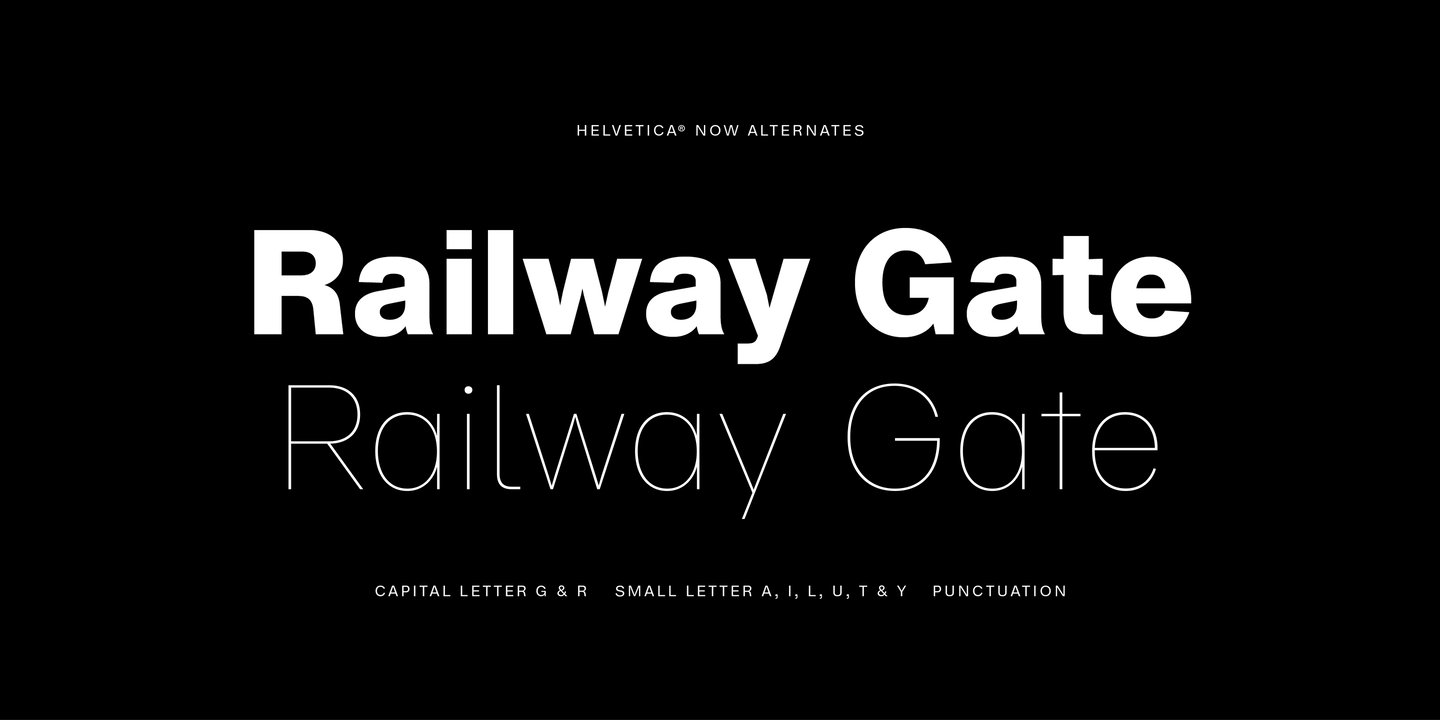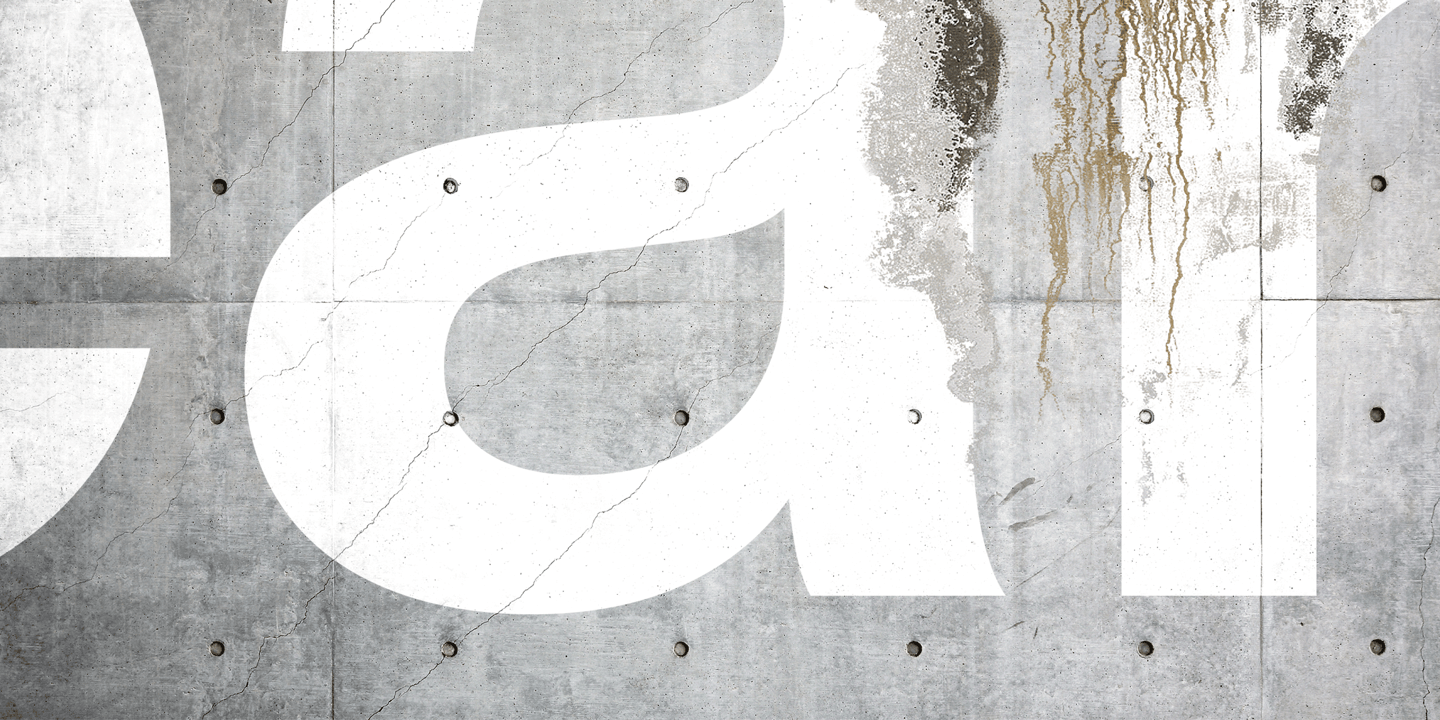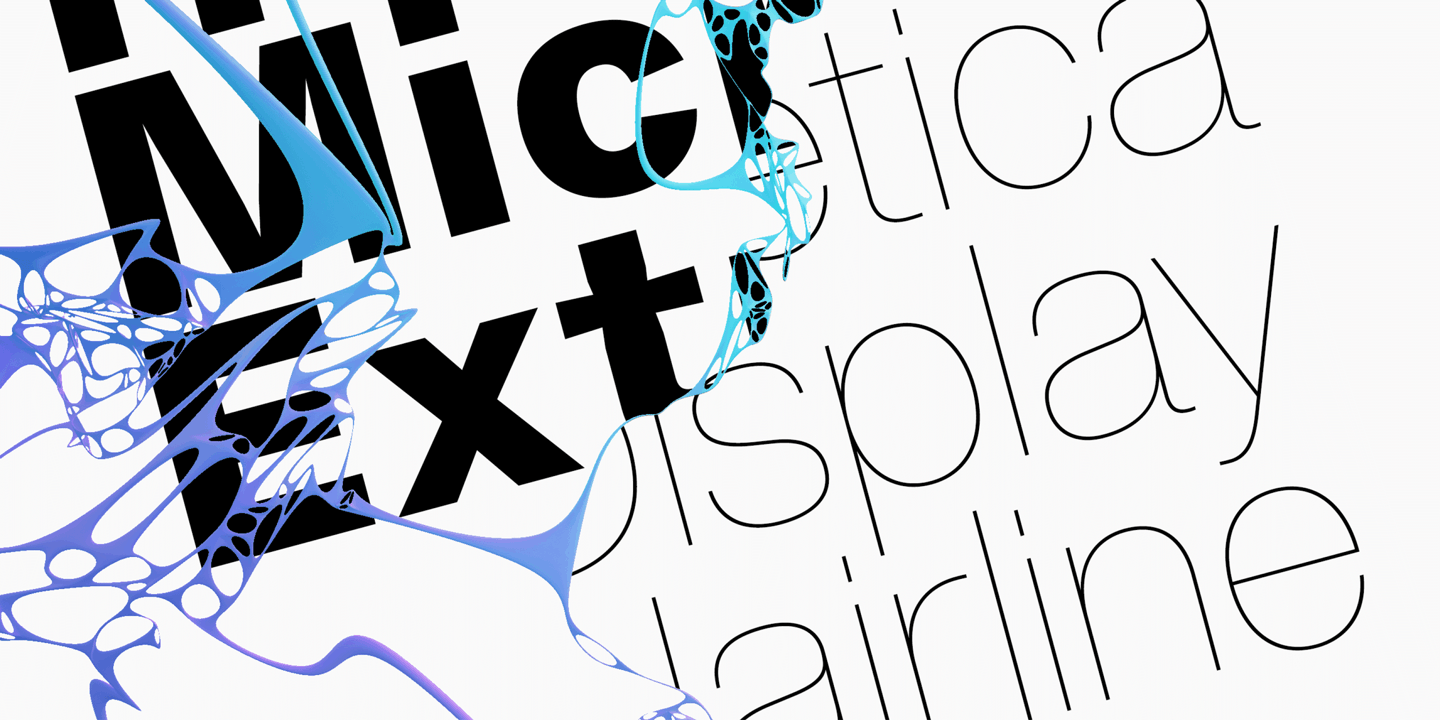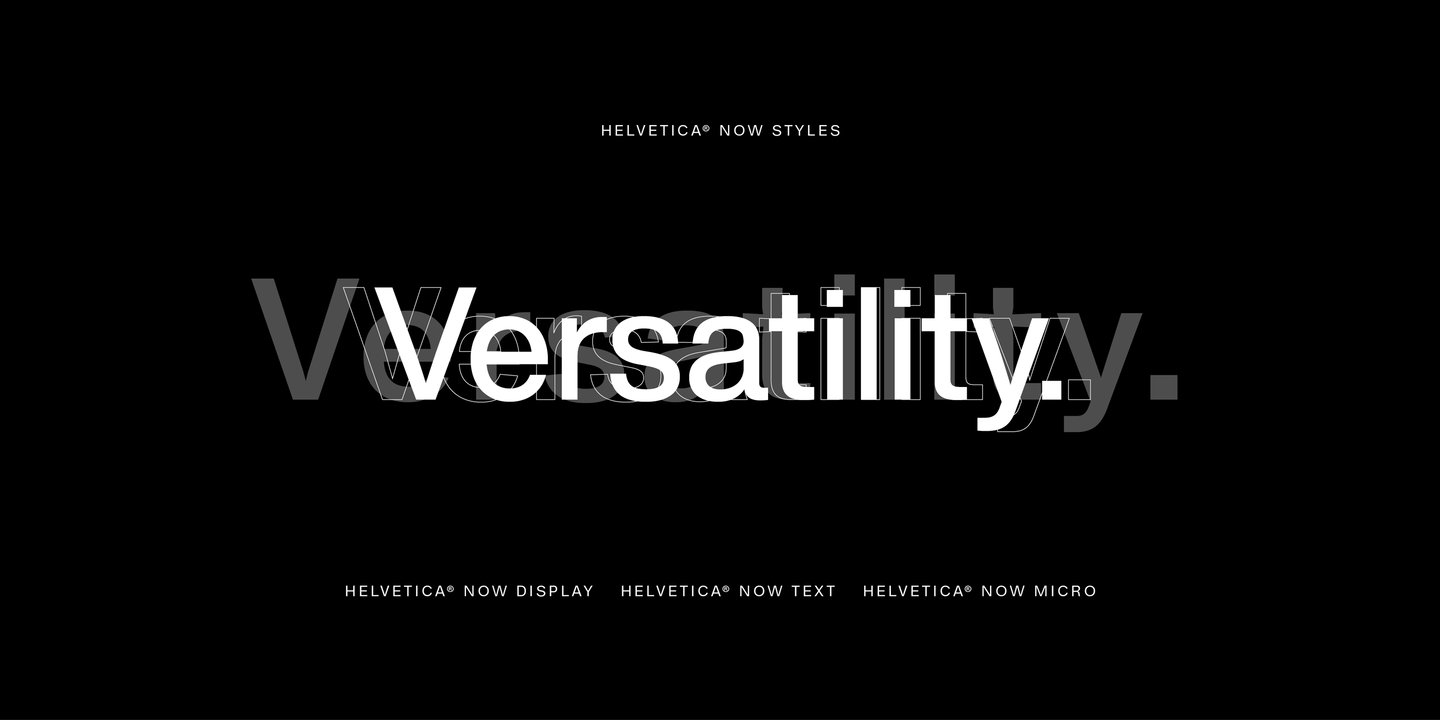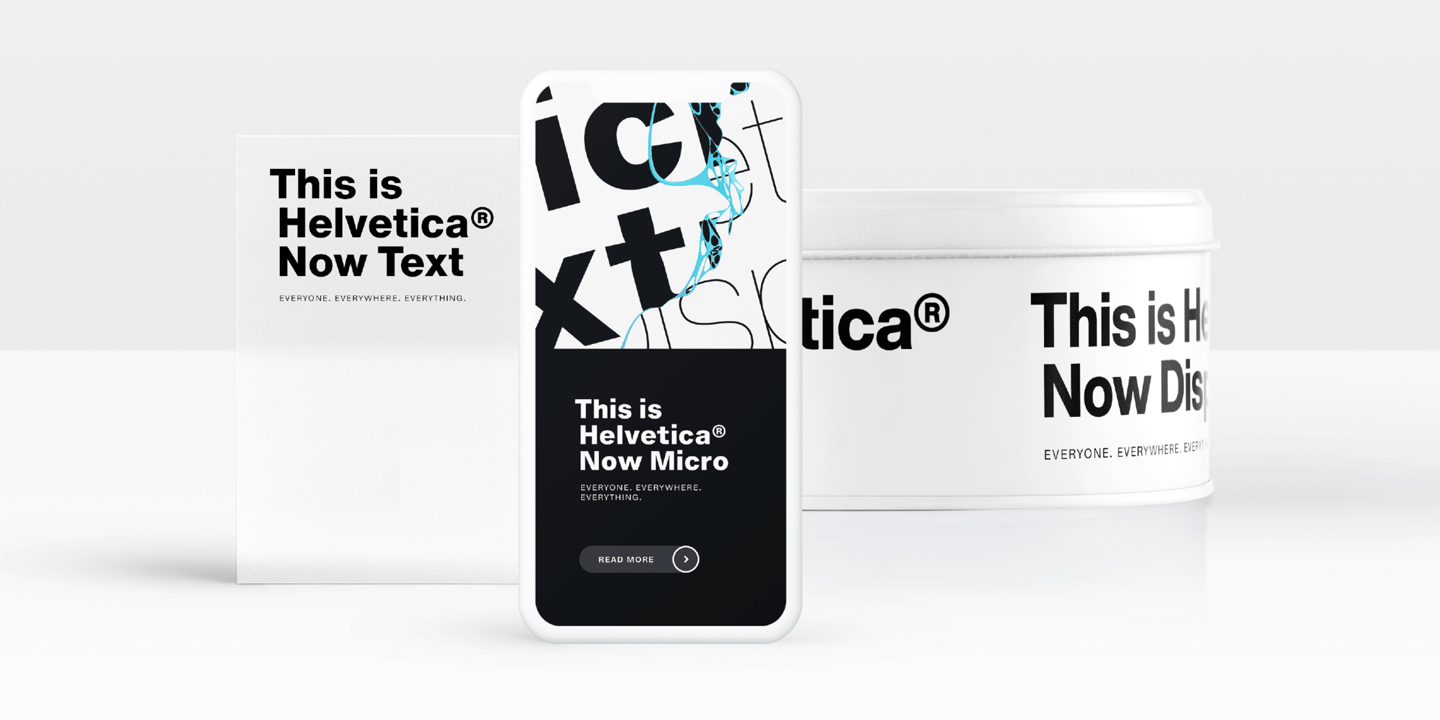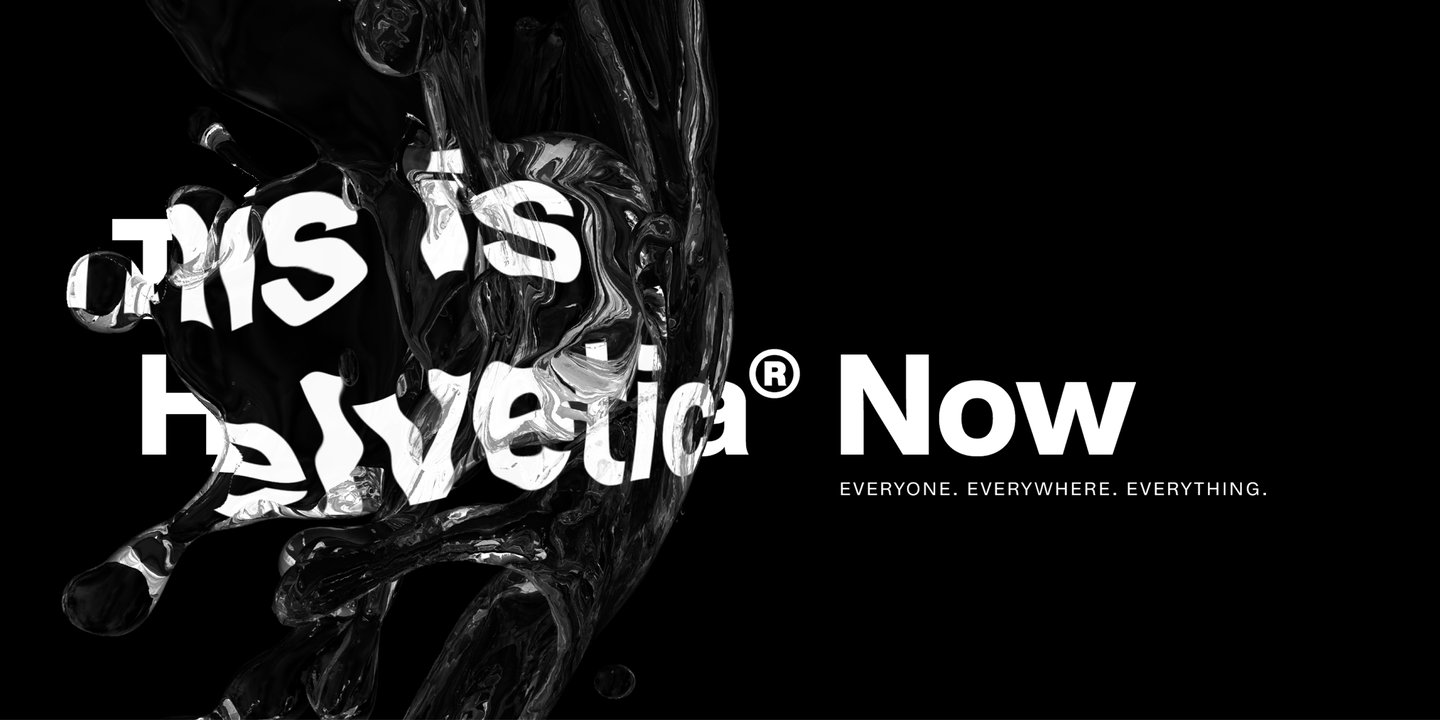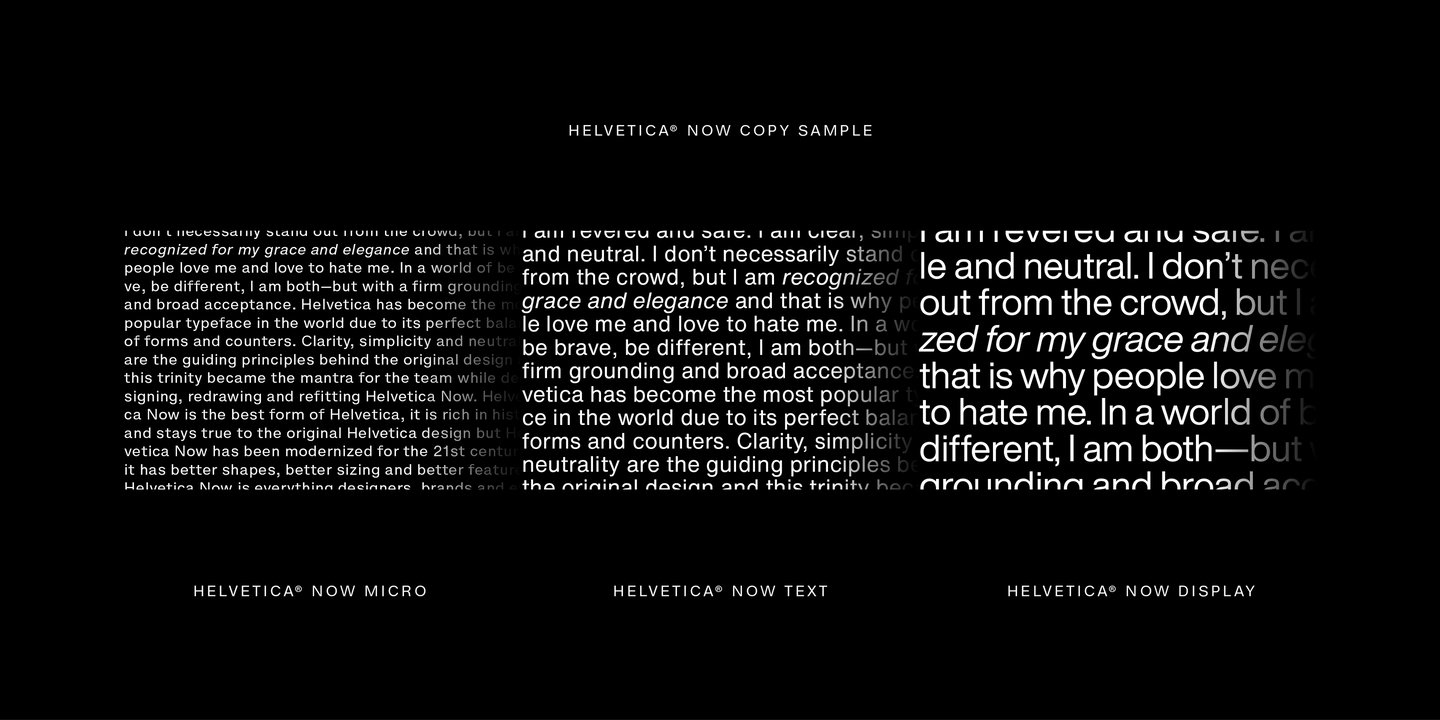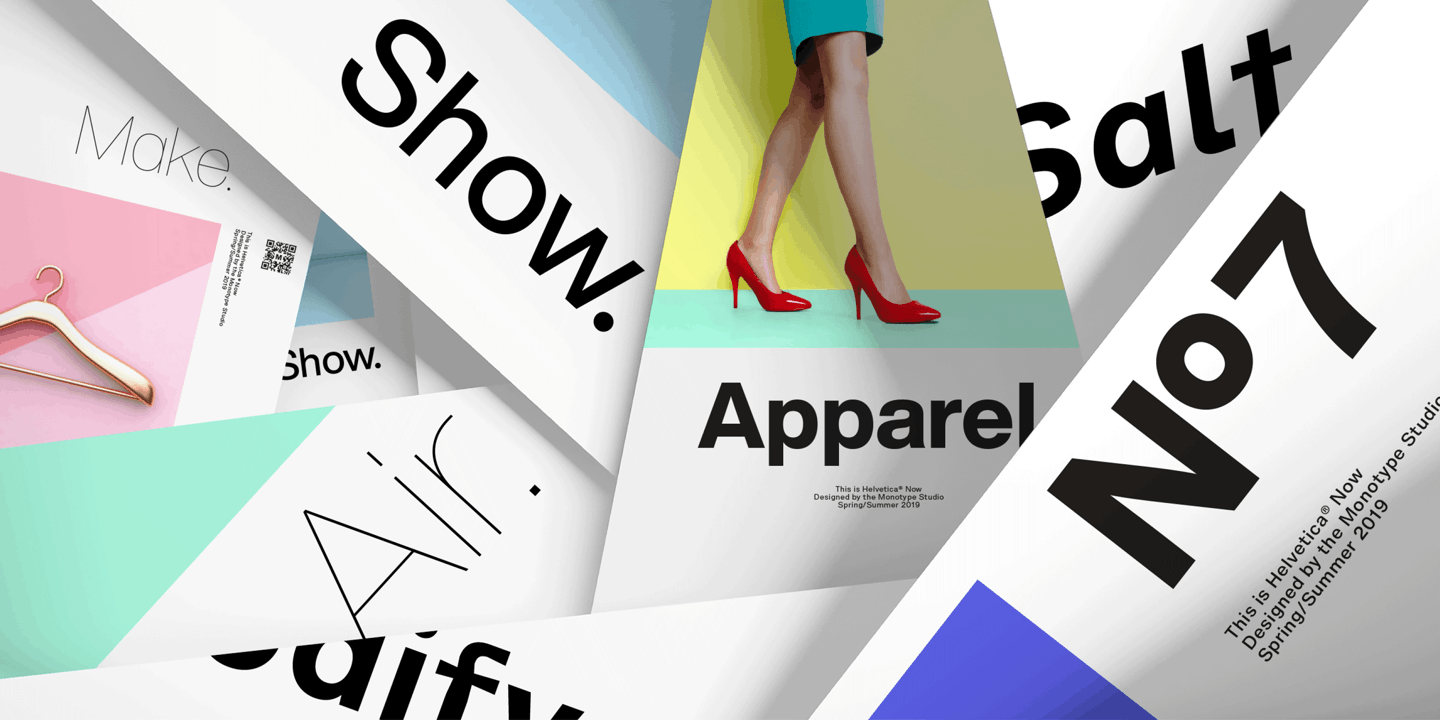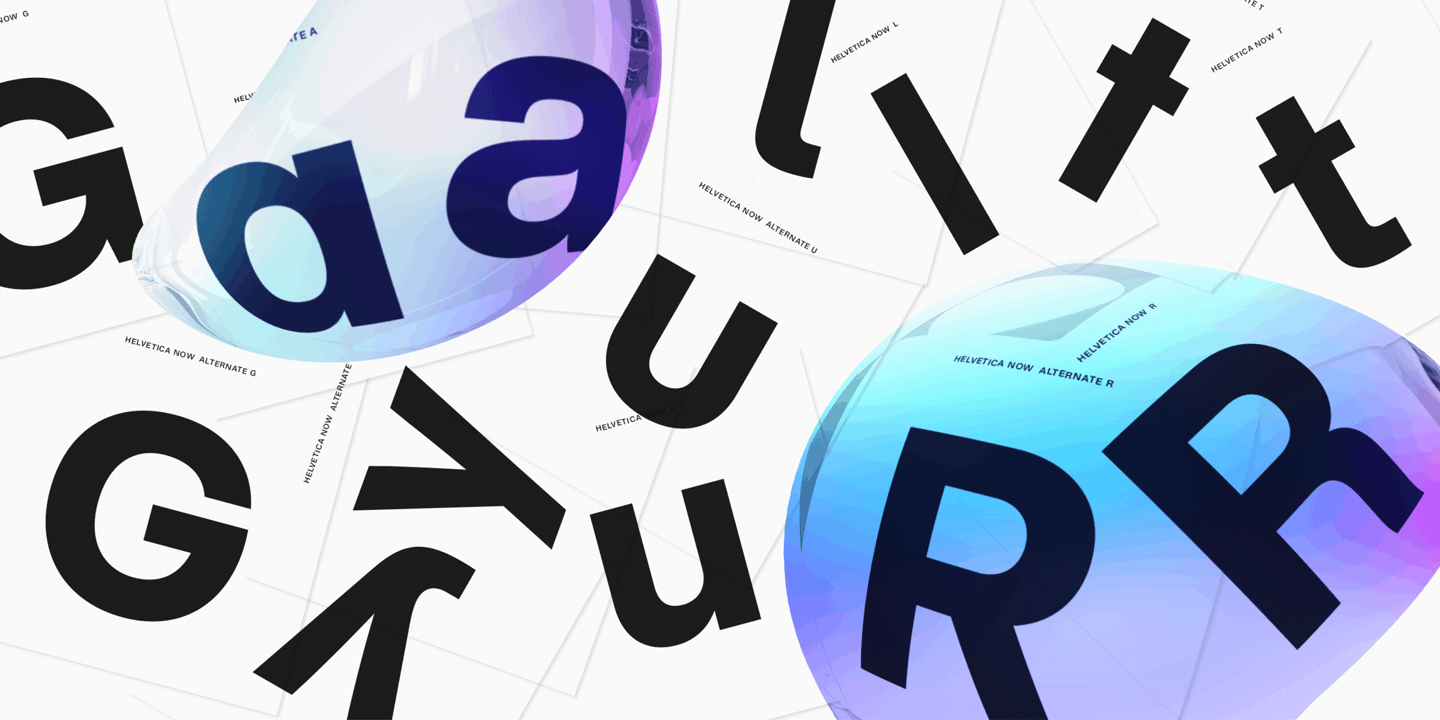
Every single glyph of Helvetica has been redrawn and redesigned for this expansive new edition – which preserves the typeface's Swiss mantra of clarity, simplicity and neutrality, while updating it for the demands of contemporary design and branding. Helvetica Now comprises 96 fonts, consisting of three distinct optical sizes: Micro, Text and Display, all in two widths. Each one has been carefully tailored to the demands of its size.
The larger Display versions are drawn to show off the subtlety of Helvetica and spaced with headlines in mind, while the Text sizes focus on legibility, using robust strokes and comfortably loose spaces. The Micro sizes address an issue Helvetica has long faced – that of being 'micro type challenged'. In the past, the typeface struggled to be legible at tiny sizes because of its compactness and closed apertures. Helvetica Now's Micro designs are simplified and exaggerated to maintain the impression of Helvetica in tiny type, and their spacing is loose, providing remarkable legibility at microscopic sizes and in low-res environments. There's also an extensive set of alternates, which allow designers the opportunity to experiment with and adapt Helvetica's tone of voice. This includes a hooked version of the lowercase l (addressing a common complaint that the capital I and lowercase l are indistinguishable) as well as a rounded G, and a straight-legged R, a single storey a and a lowercase u without a trailing serif. In the past, designers had to nudge, trim and contort the design to create stylish display-type lockups with Helvetica.
Helvetica Now Display was designed and spaced with those modifications in mind—saving effort and providing more consistent (and more stylish) results. “Helvetica is the gold standard,' says Monotype Type Director Charles Nix. “To use it is to claim that you are the ultimate expression of whatever your brand aspires to be. Its blankness is its power.”